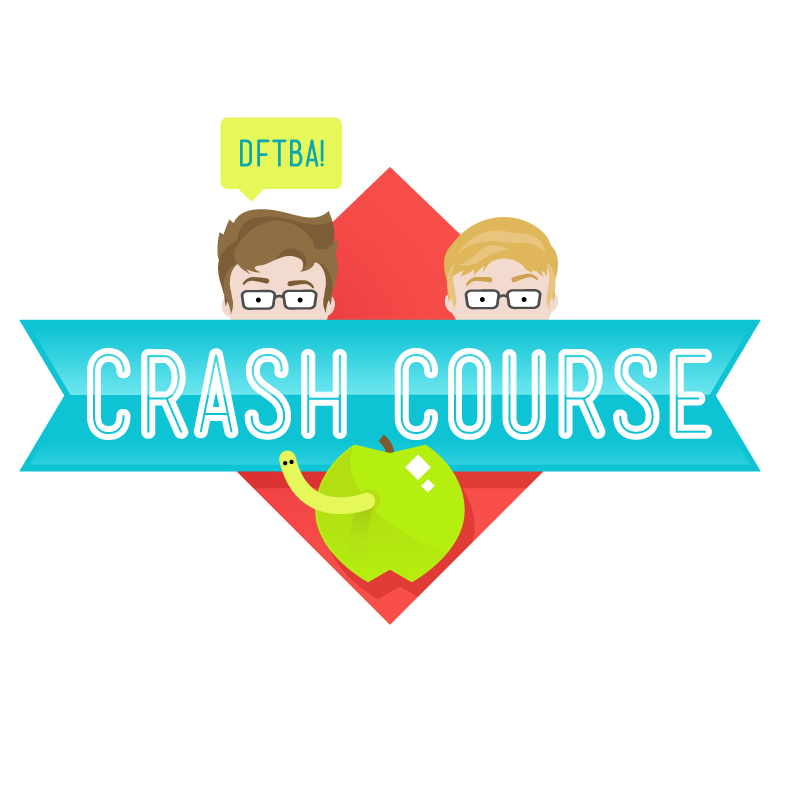
Crash Course Logo Font
Fonts in UseCrash Course is a popular educational YouTube channel that offers engaging and informative video courses on a wide range of subjects, from science and history to economics and philosophy. It was started by Hank and John Green, who are also recognized for their VlogBrothers channel.
Crash Course's logo font is Mensch Inline, a condensed uppercase-only typeface with four styles available, designed by Morgan Knutson. It's distributed on a Pay-What-You-Want basis, and more details are available here.